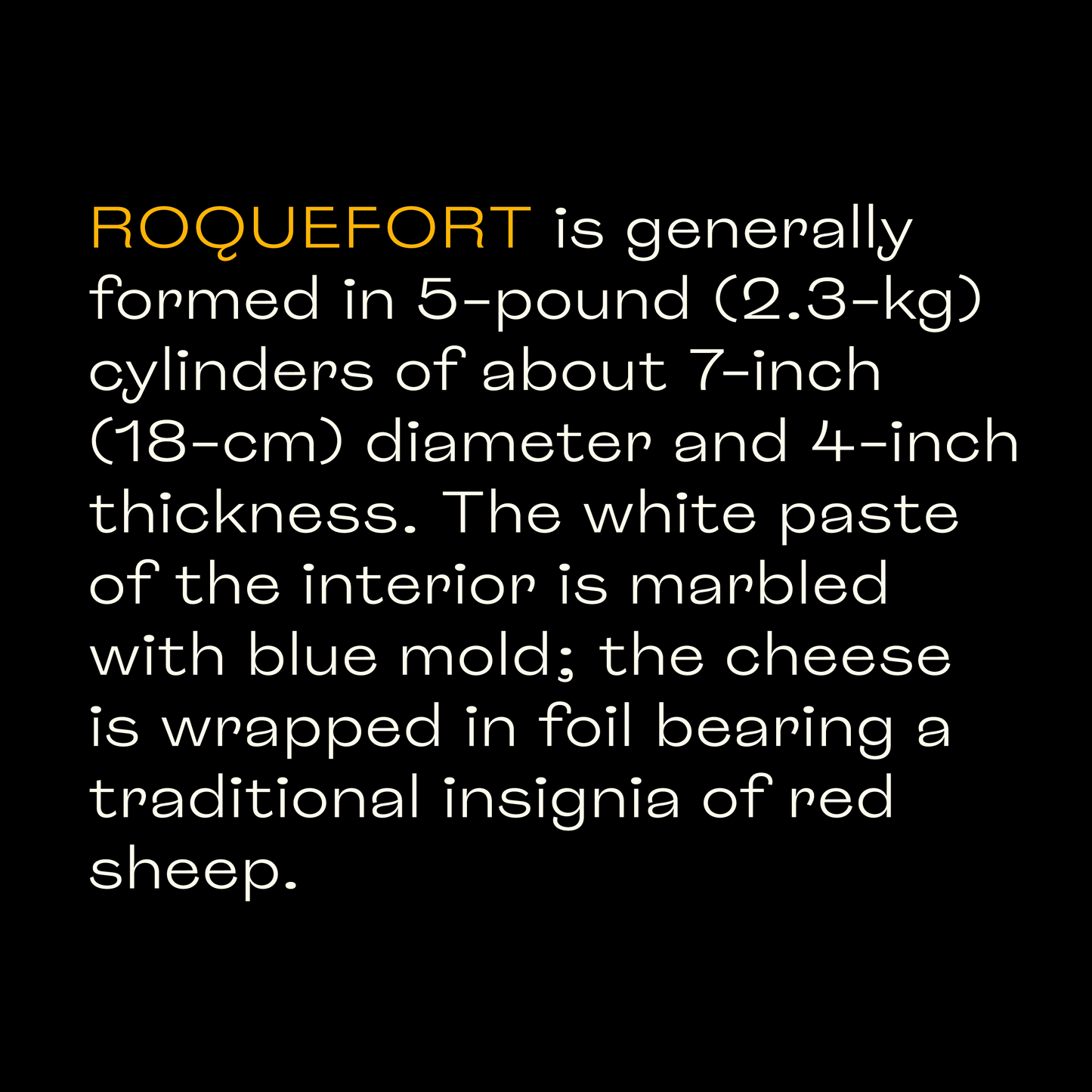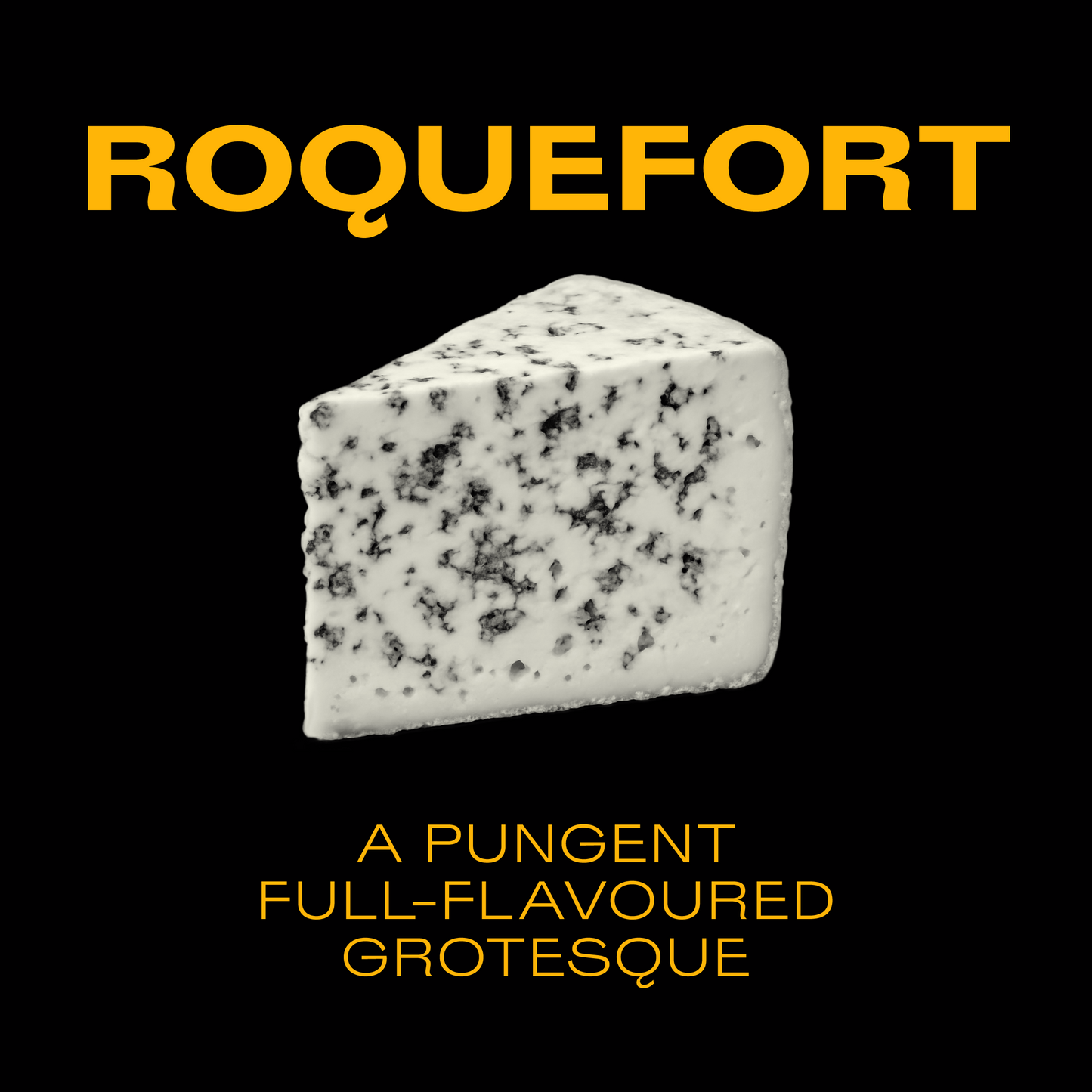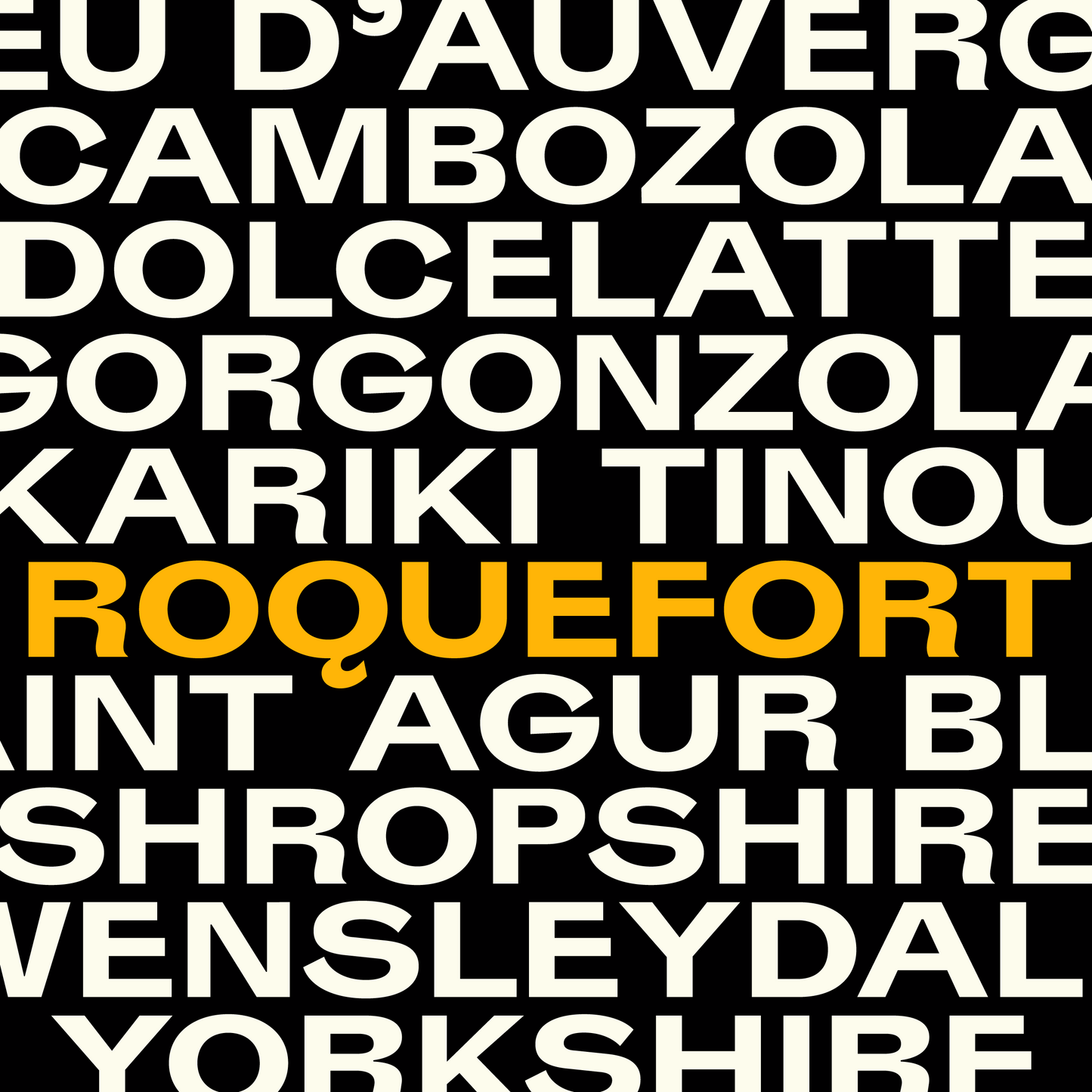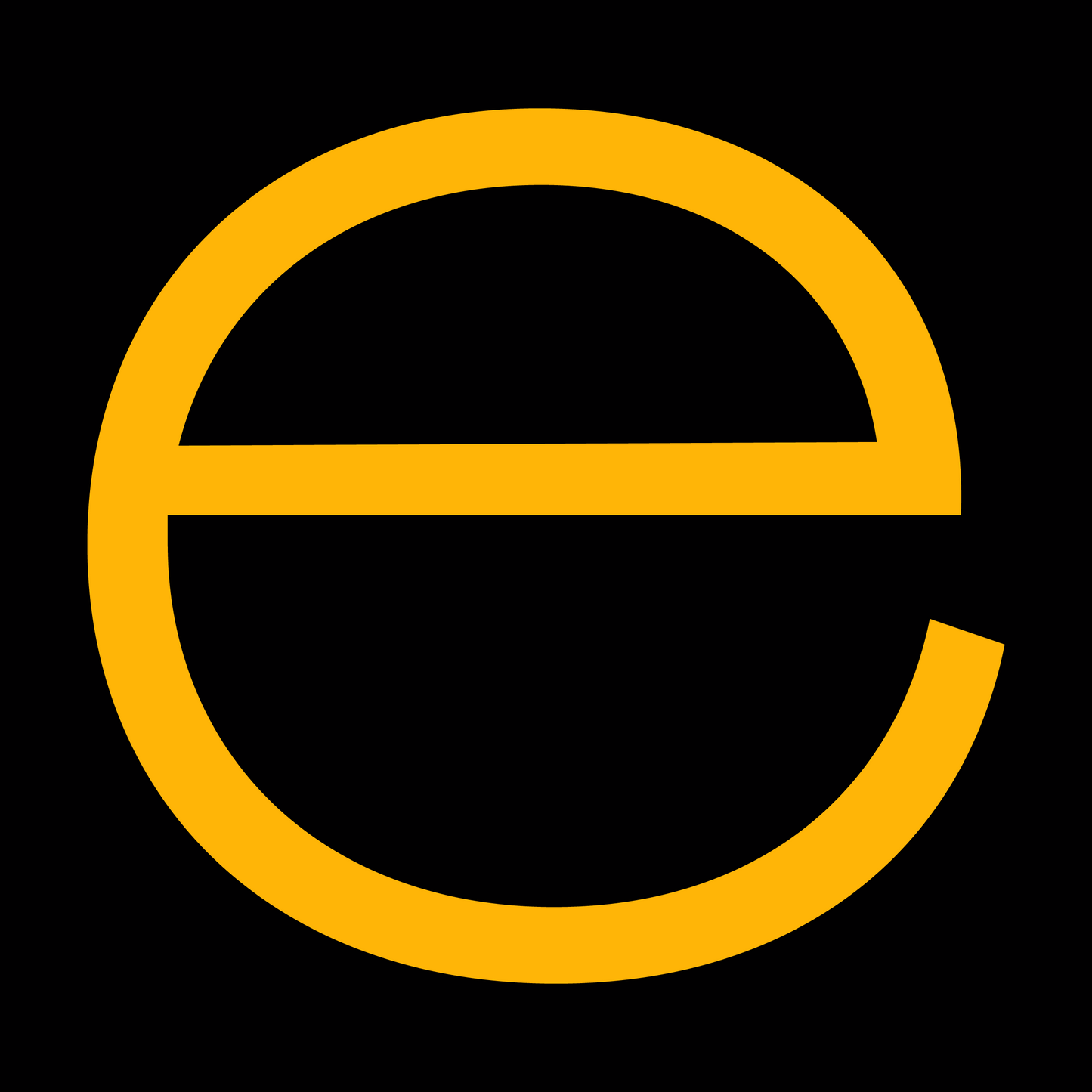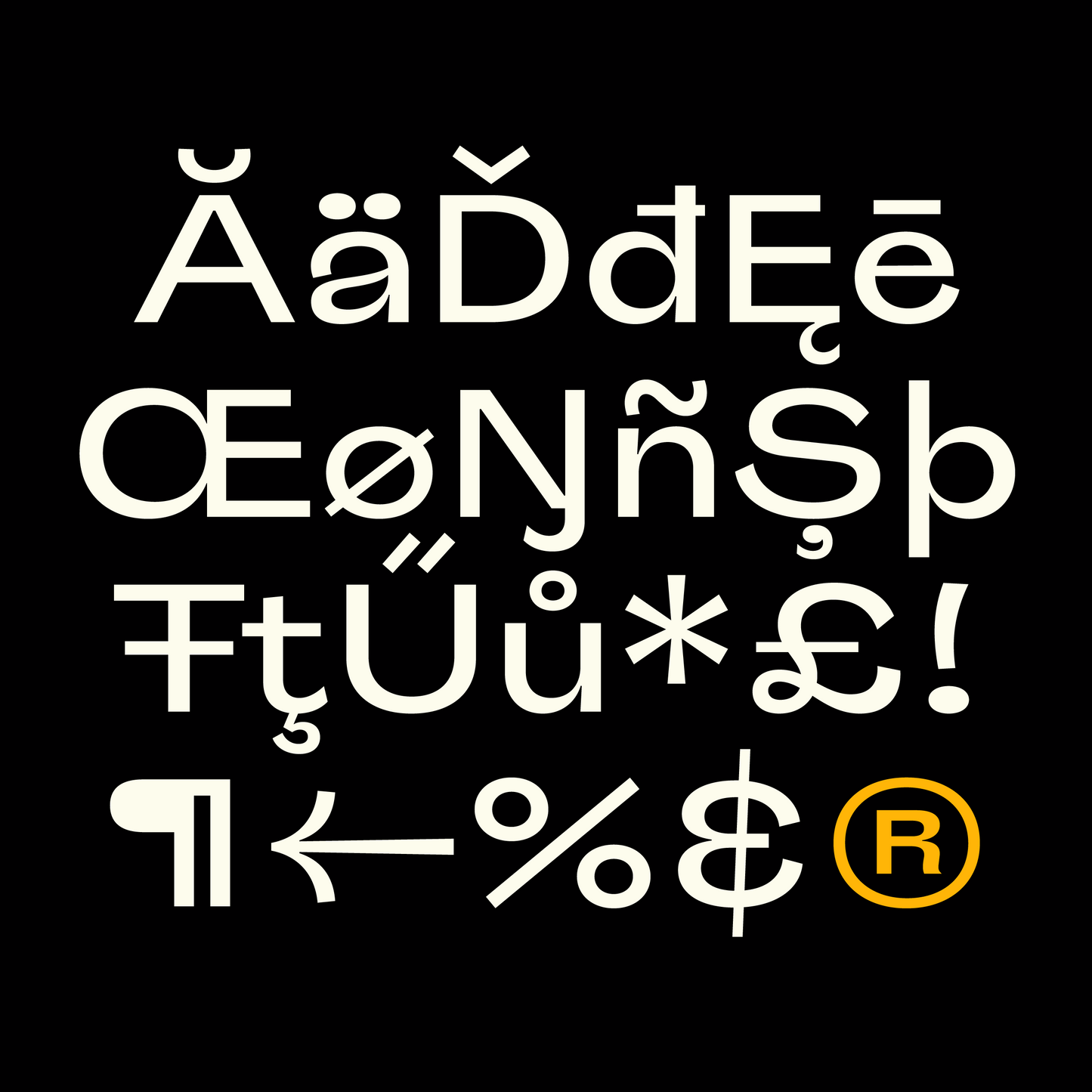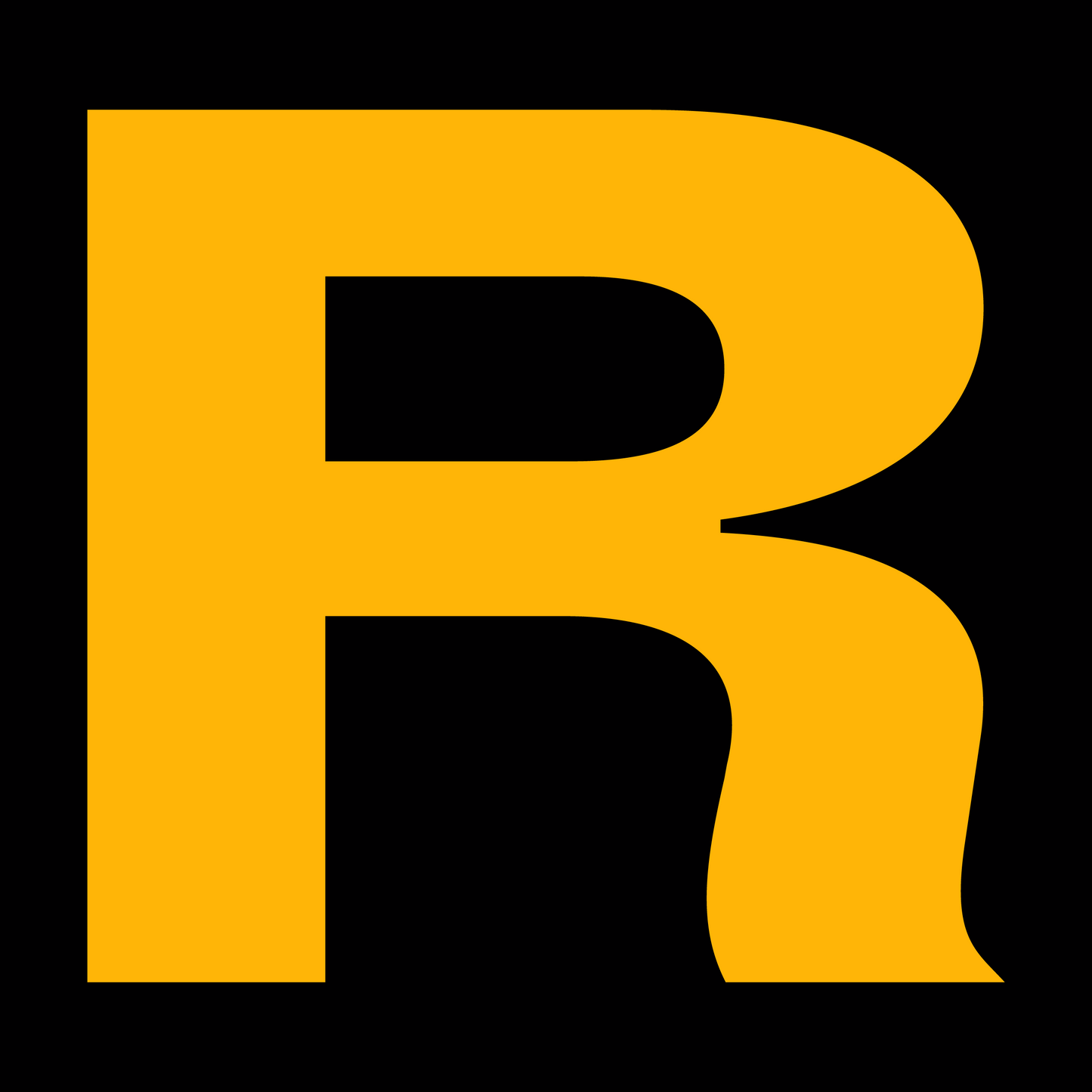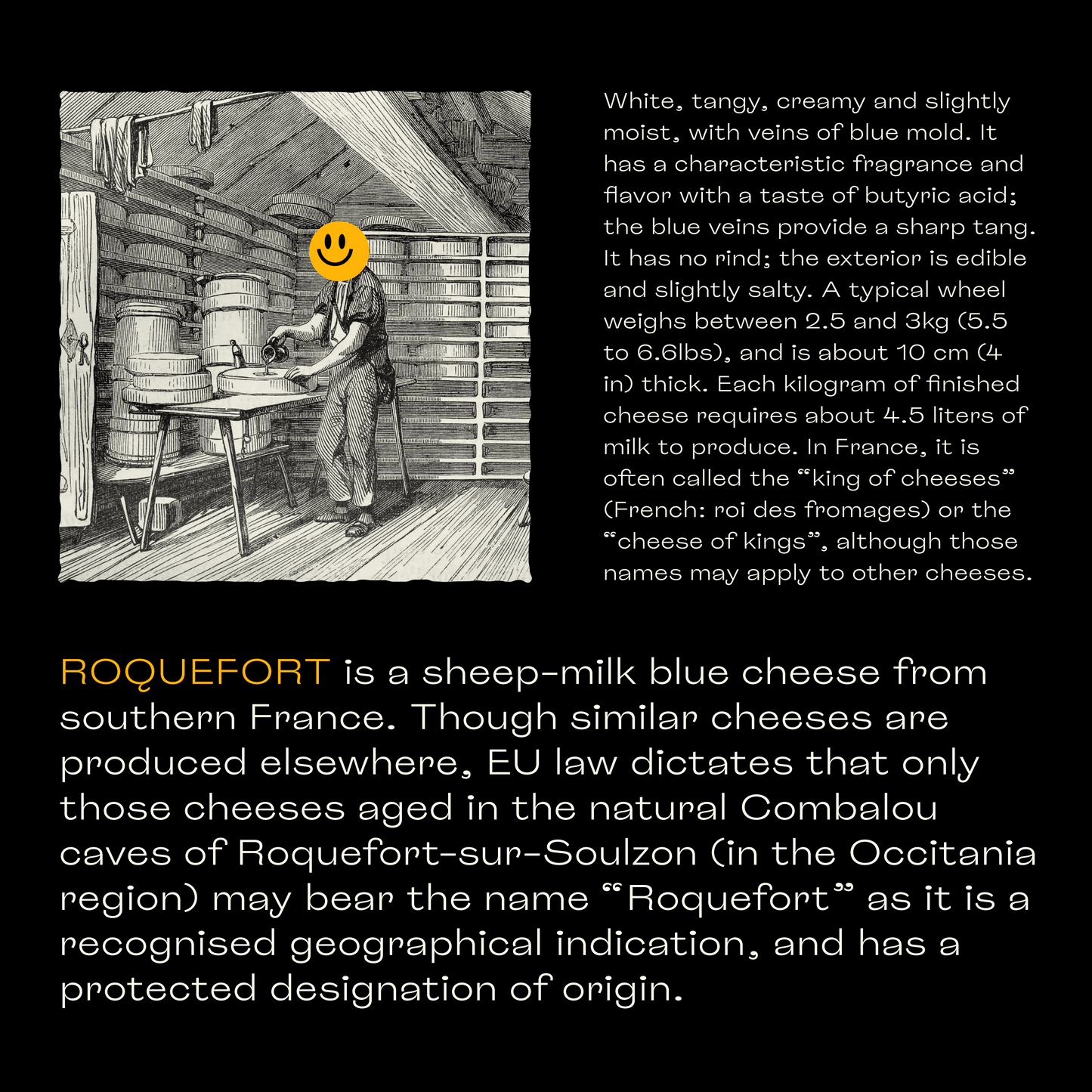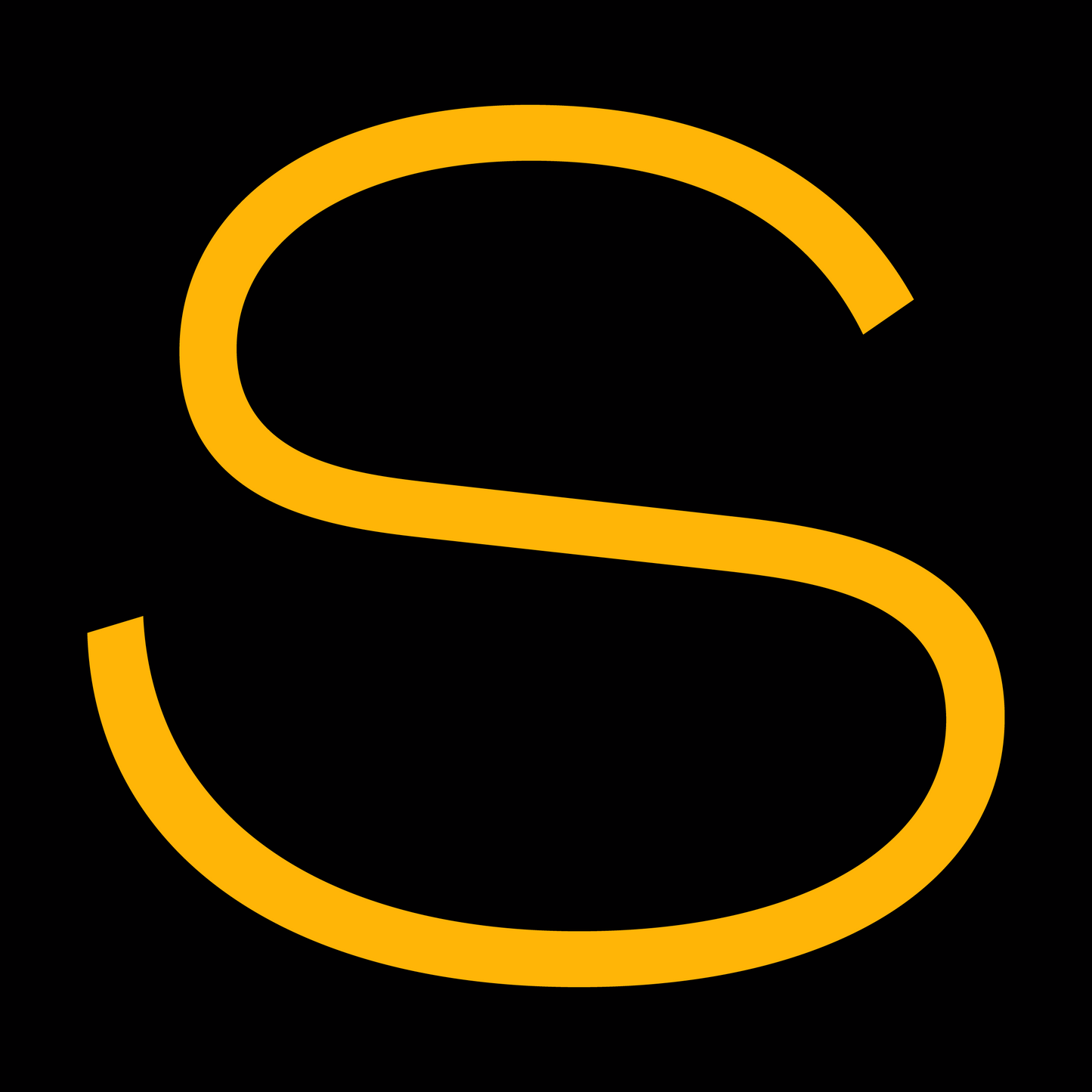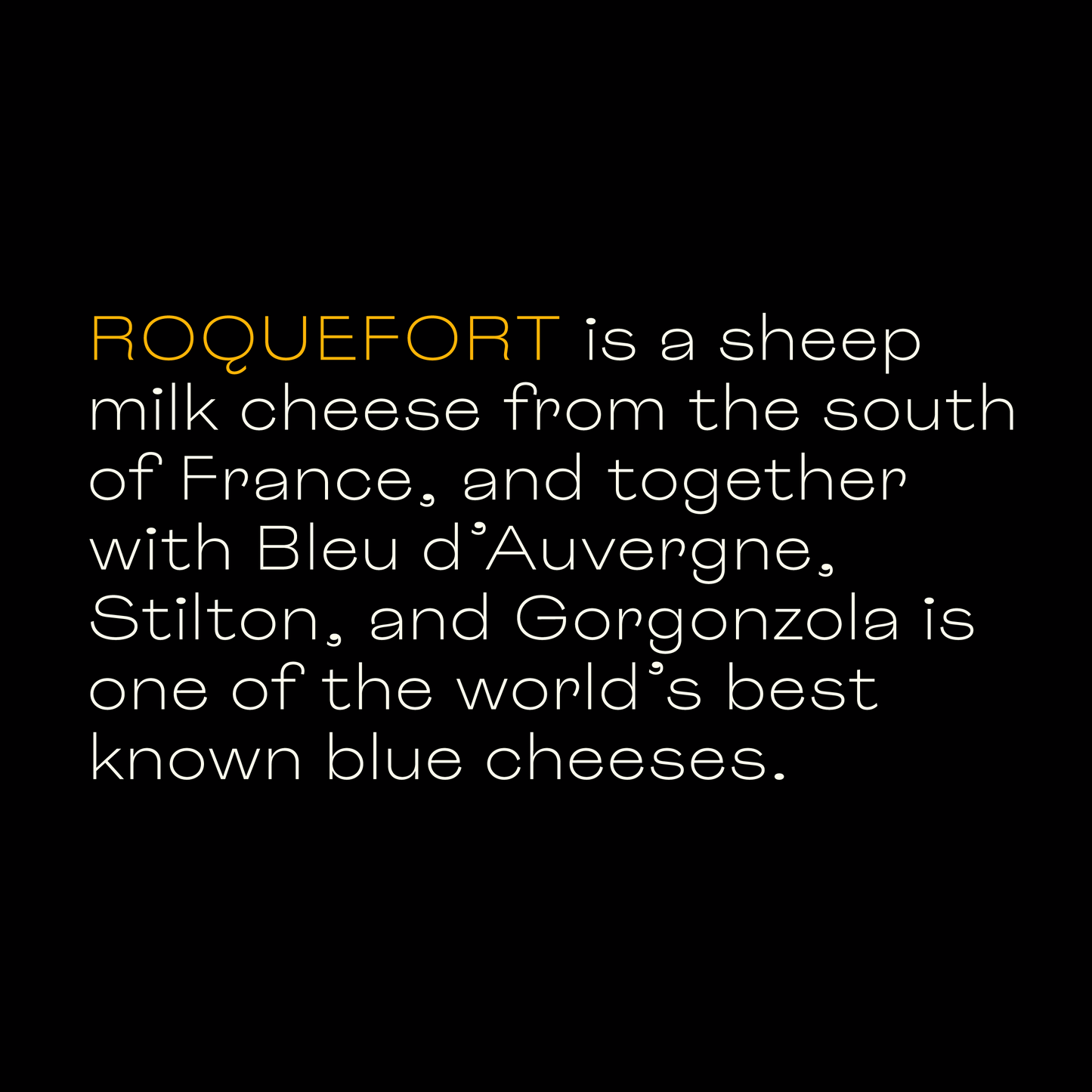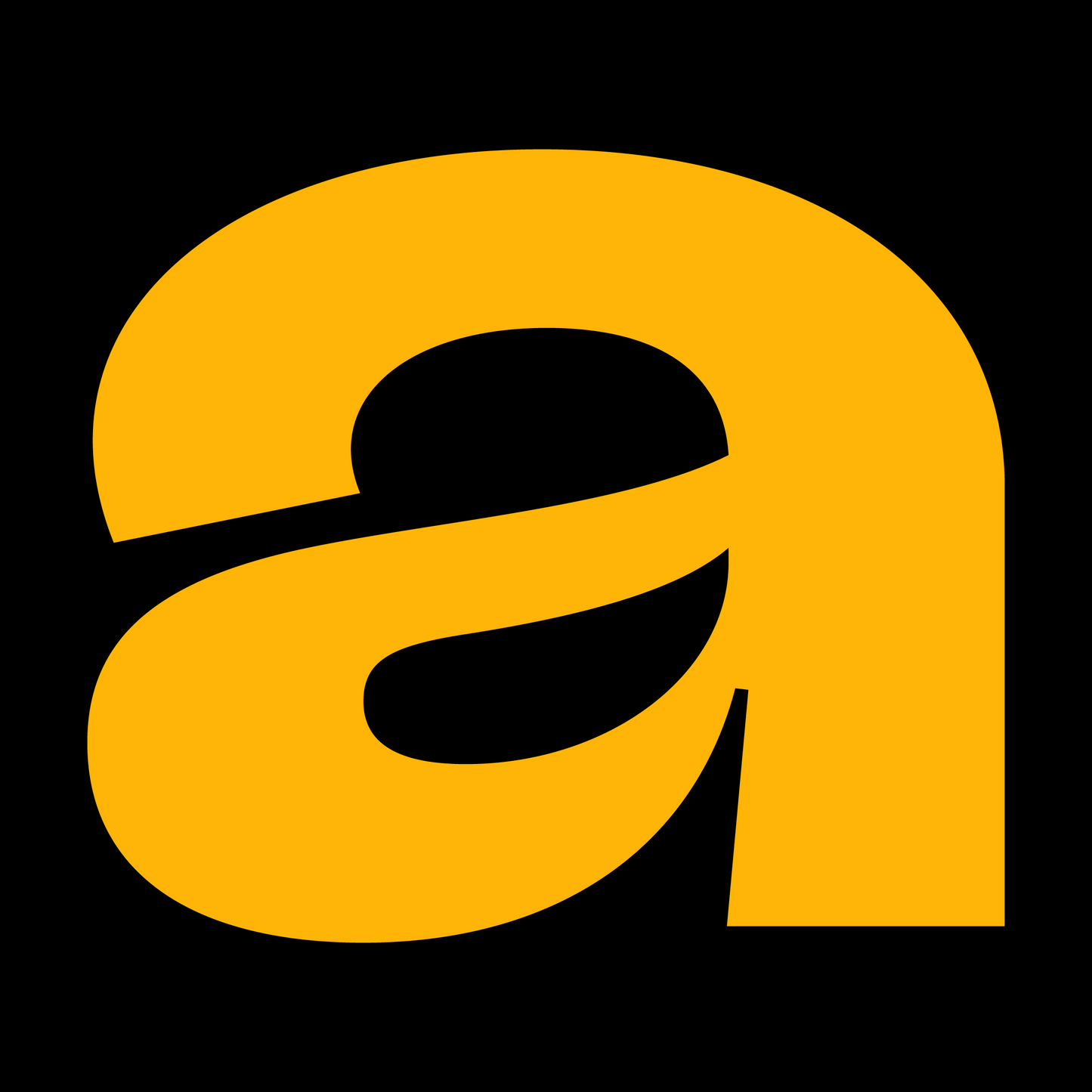
Roquefort
Roquefort is an eccentric expanded grotesque typeface, much like its cheese namesake: bold, full of character, and unapologetically flavourful. Unlike the cheese, however, this typeface embraces spontaneity and avoids the over-refinement that can sterilize design over time.
With its quirky inconsistencies and robust form, Roquefort retains the distinctive charm and solid presence typical of grotesque typefaces.
- Total glyphs: 364
- Uppercase & lowercase
- Numerals
- Punctuation & symbols
- Arrows
- Ligatures
- Contextual alternates
- Stylistic set 1: alternate a